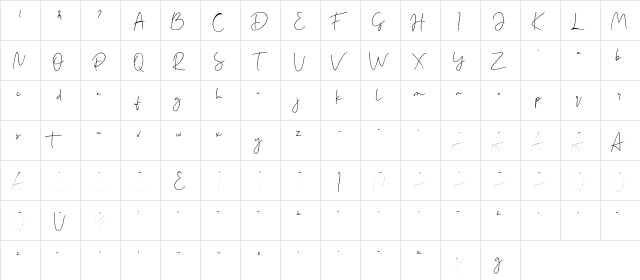
margareth demo Regular Font Preview
margareth demo Regular
margareth demo Regular Font Details
| Foundry | Sayins |
| Designer | Sayins |
Design Context for margareth demo Typeface
margareth demo is a composed and adaptable typeface that performs quietly and consistently across a wide range of design contexts.